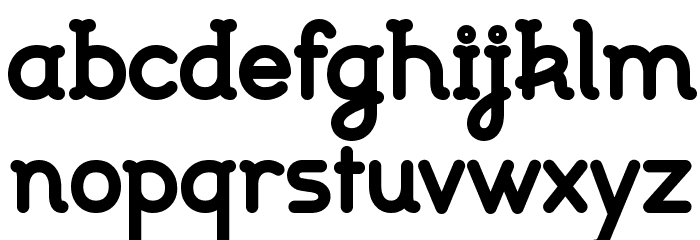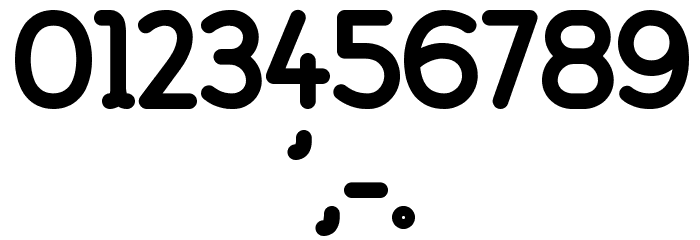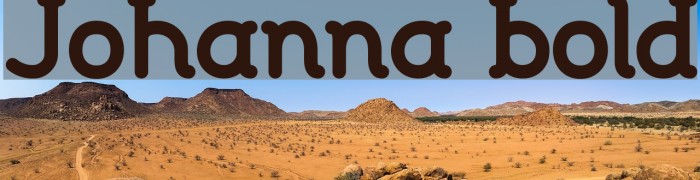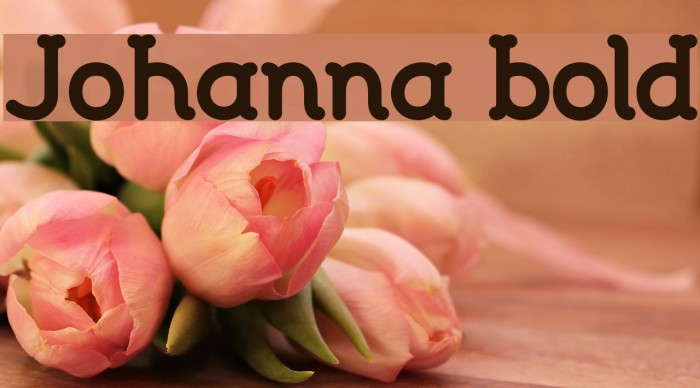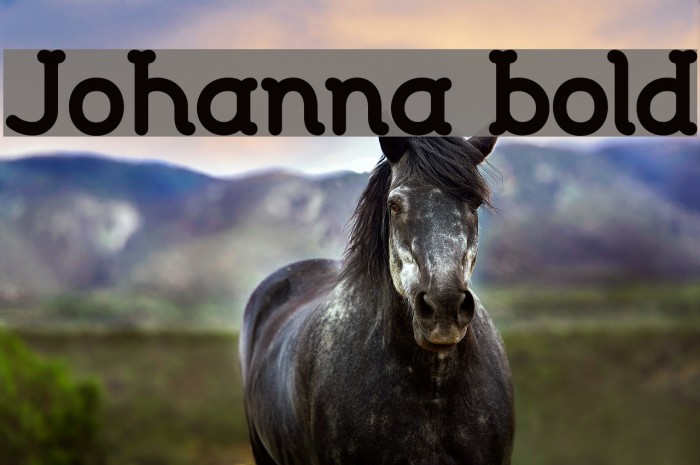
Johanna bold Font
This font features a playful and rounded design, characterized by its bold and smooth curves. The letters are evenly spaced, with a consistent stroke width that gives it a uniform appearance. The rounded edges and bubbly style lend a friendly and approachable feel, making it suitable for casual and informal contexts. The numerals and special characters maintain the same rounded aesthetic, ensuring visual harmony across all glyphs. This font's distinctive style makes it stand out, while its readability remains intact.
A bold, rounded font with a playful and friendly style.
- Proposed Projects: Ideal for children's books, playful branding, greeting cards, and casual digital content.
- Overall Style: Playful